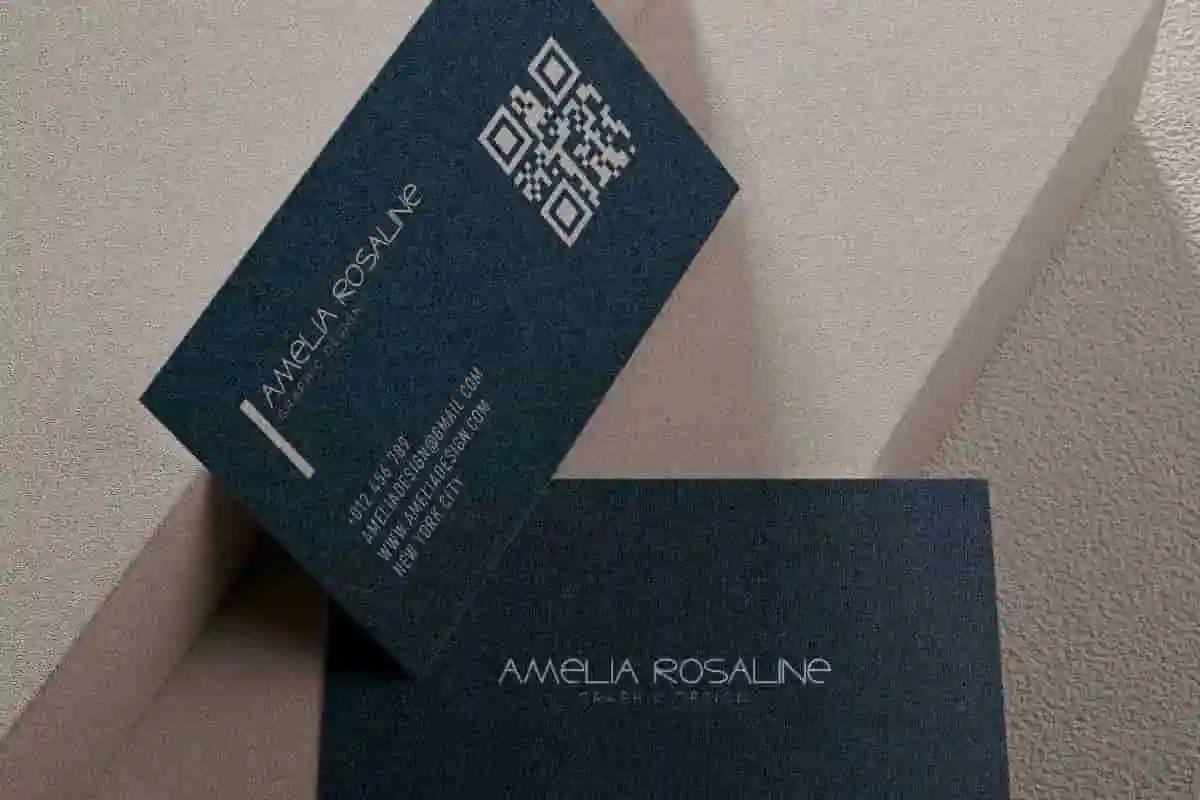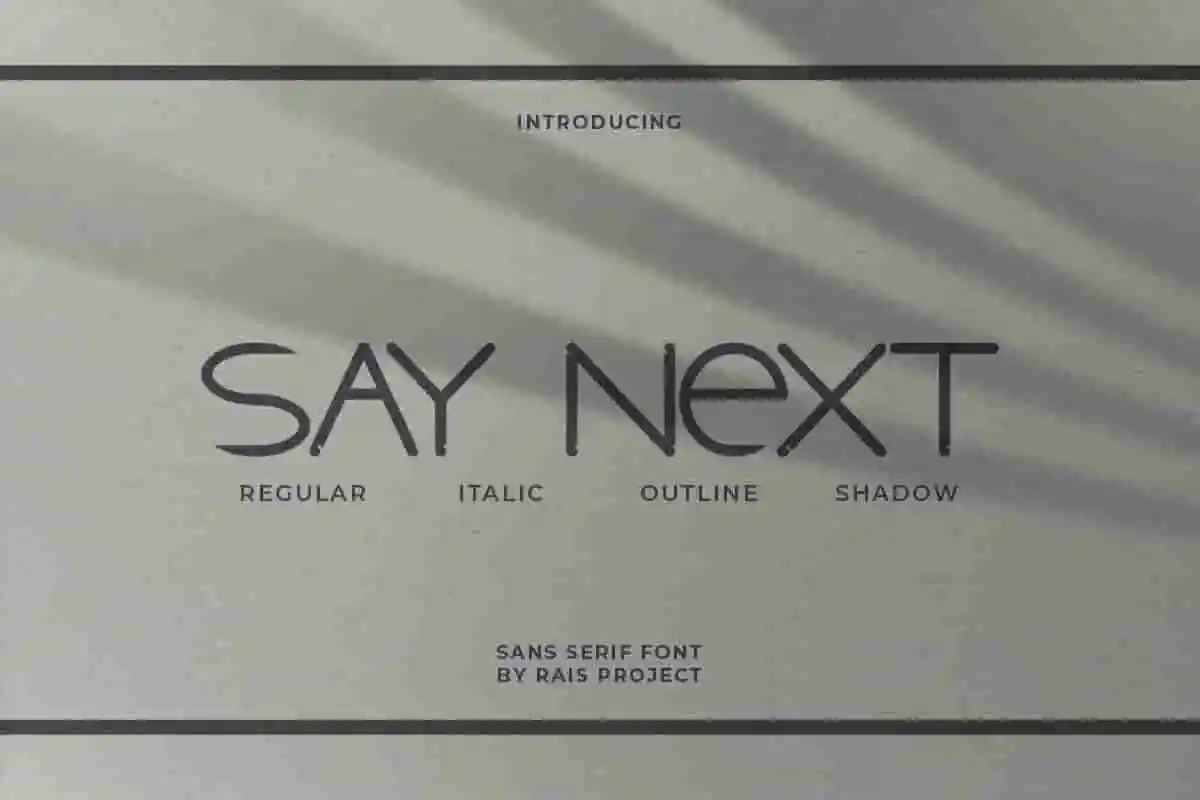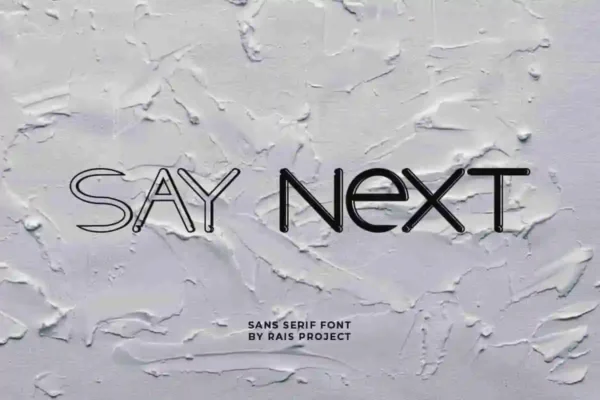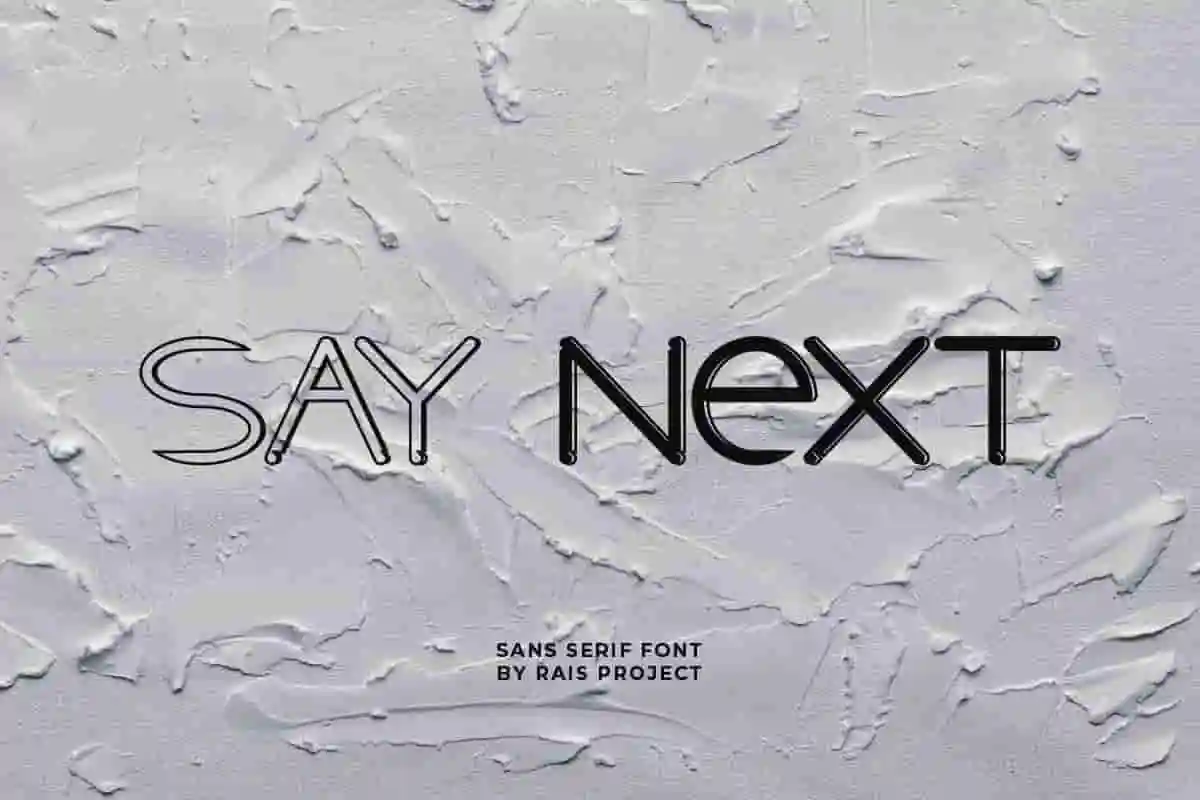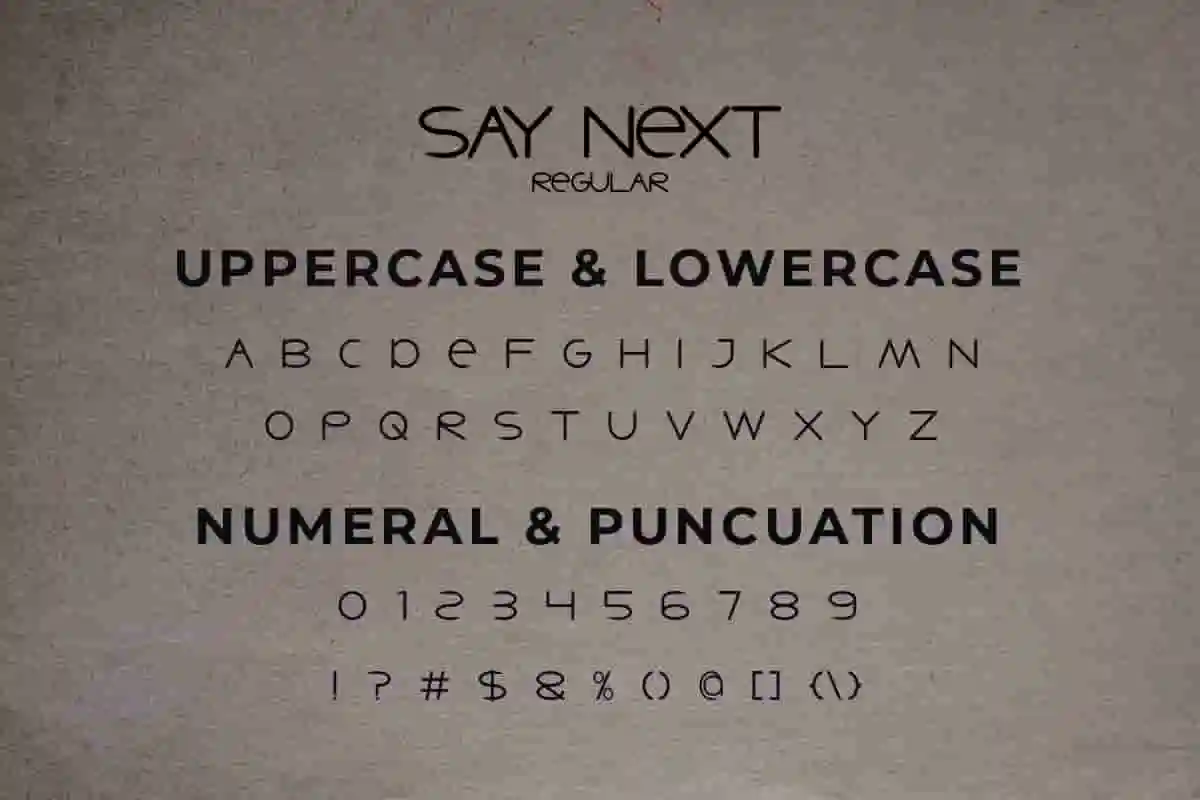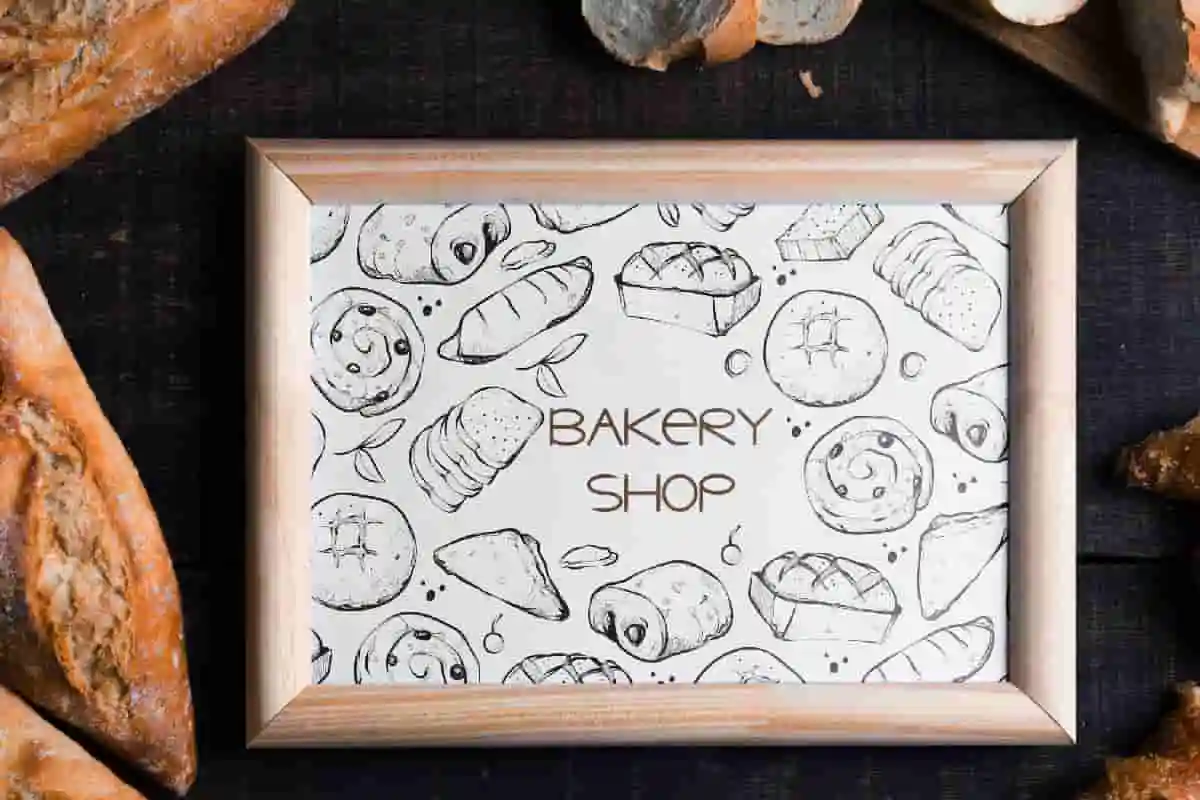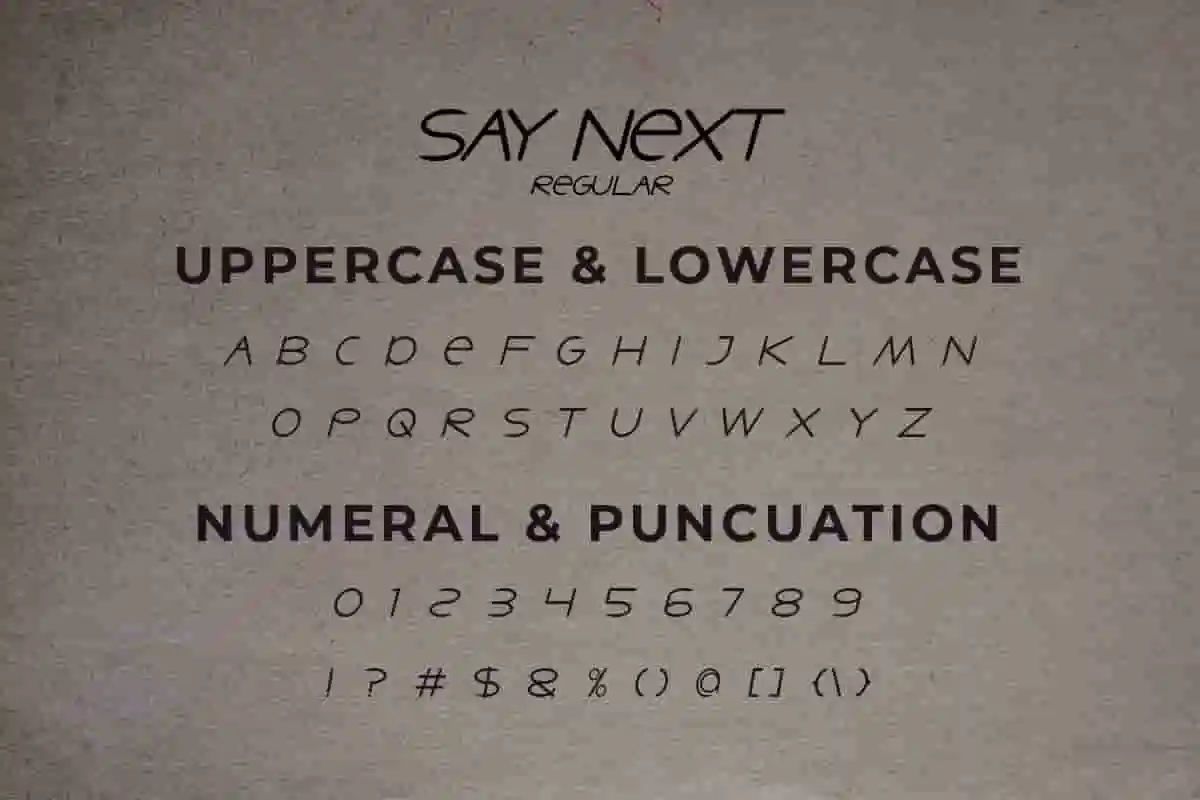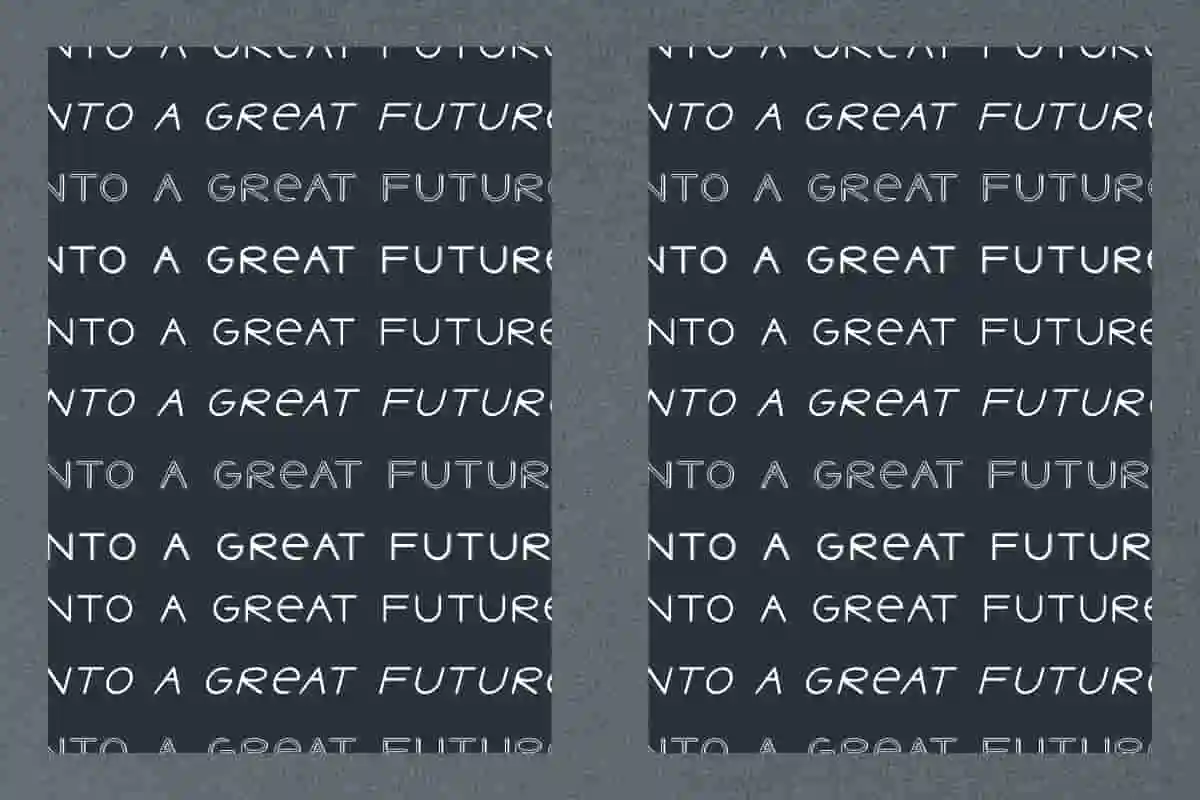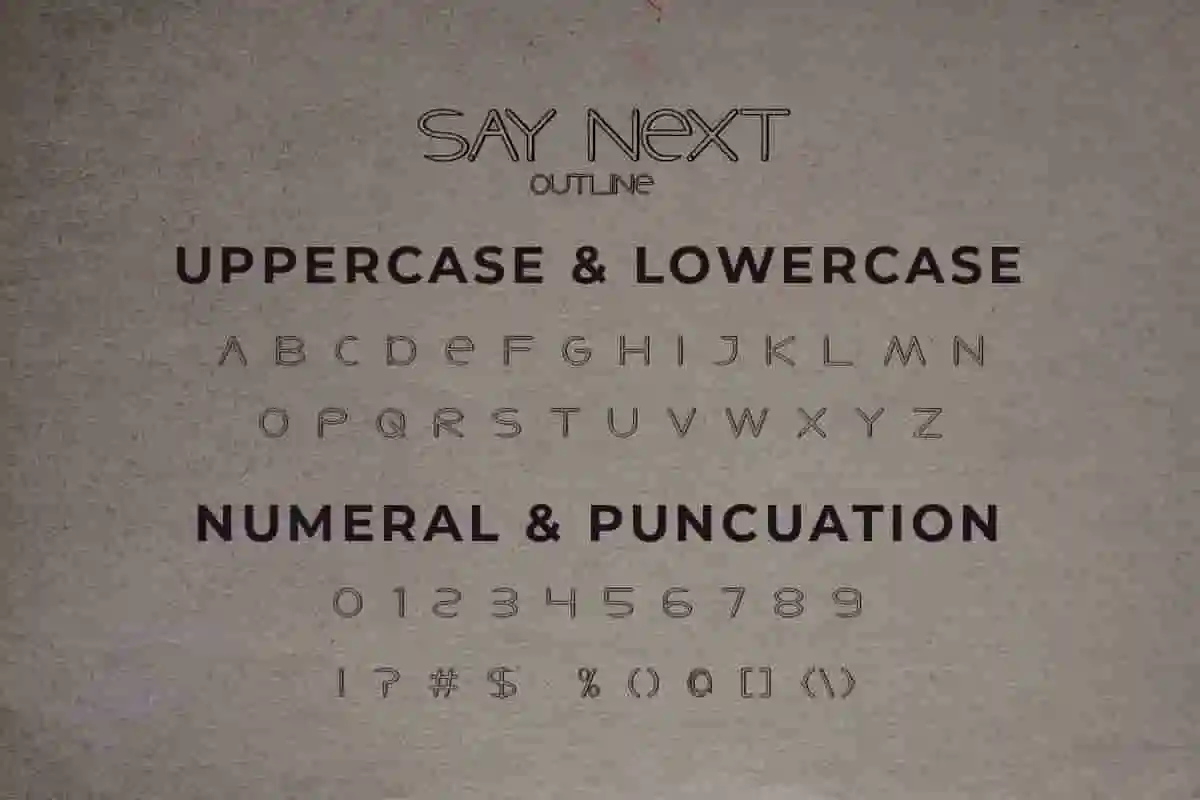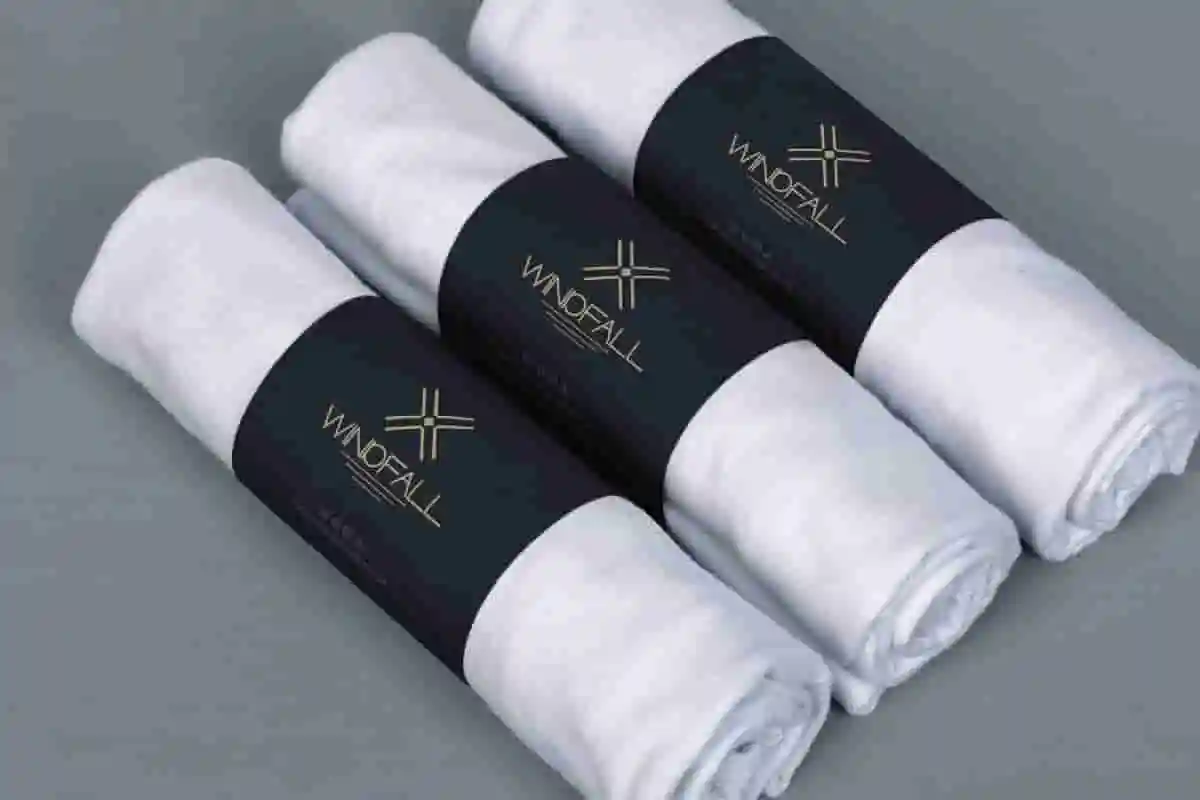
Say Next Sans Serif Font
Say Next Font is a display decorative sans serif font family, designed by Rais Project. The font has three different styles that great for Sport, Cosmetic, Beauty, Technology, Game, Magazine, Music, etc
Say Next Font is a decorative Sans Serif font family, inspired from move on movement in modern life designed by RaisProject. It is our new font on the market. It has unique, modern and stylish style. You can see the demo font below. You can also input any word you want so you can see what it will look like :
Say Next Font remotely made by RaisProject team in Indonesia.The industries for this font is Startup, Automotive, Apps, Cosmetic, Beauty, Technology, Game, Magazine, Music, Sport etc.  In total, Say Sans Serif Next Font has four different styles : Regular, Italic, outline and Shadow On the package You will get: